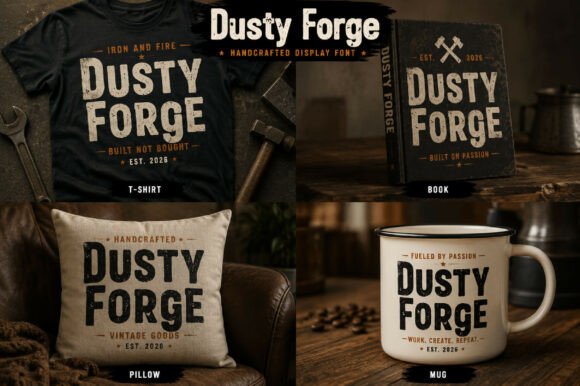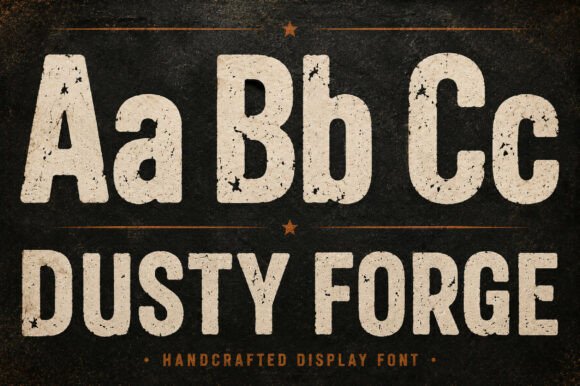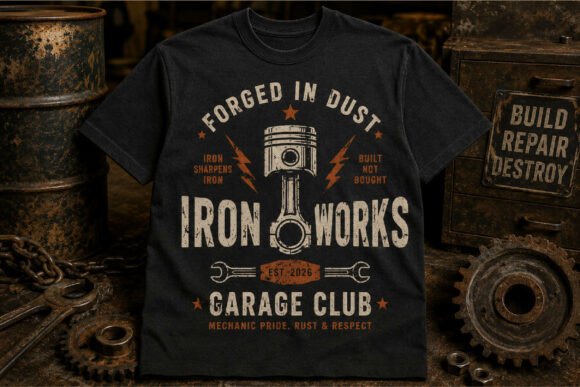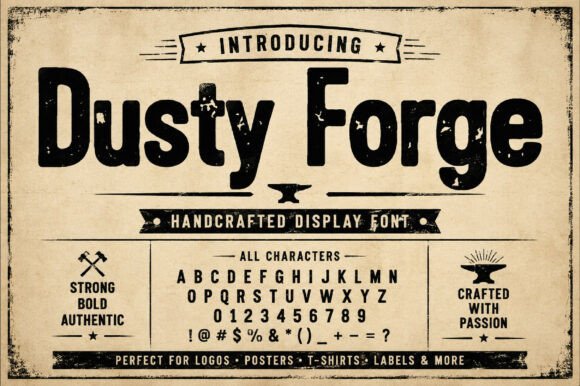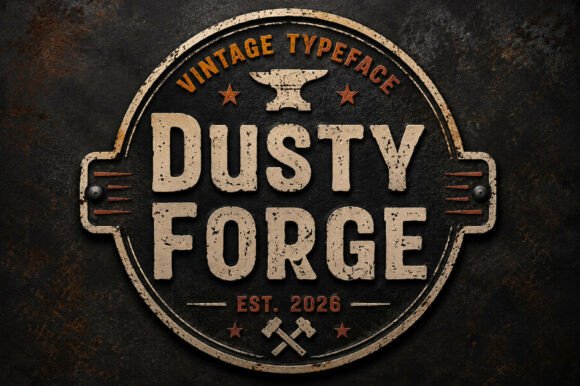
Introduction to Dusty Forge Font
Have you ever been rummaging through an old trunk in your grandfather’s attic, unearthing forgotten memories and dusty relics? I’ve had those moments, and they often spark a creative itch. One such moment led me to the raw, rugged beauty of the American West, where vintage signage and classic saloon typography tell stories of a bygone era. It’s this nostalgic charm that inspired the creation of the Dusty Forge Font – a high-quality, free download that’s about to become your go-to design resource.
As a designer, you’re always on the lookout for the perfect font to breathe life into your creative projects. Dusty Forge Font is an indispensable tool that’s sure to evoke an aura of nostalgia and timeless Americana. With its unique blend of bold structure and rustic attributes, this font is perfect for logos, posters, whiskey labels, apparel, or event graphics that need a rugged, vintage touch.
Key Features of Dusty Forge Font
- Unique, hand-drawn style with a distressed aesthetic
- Includes a comprehensive character set with over 500 glyphs
Honest Review: Dusty Forge Font
I recently came across the Dusty Forge Font and I must say, it’s been a game-changer for my creative projects. As a designer, I’m always on the lookout for high-quality design resources that can help elevate my work, and this font definitely delivers.
What works well: ✨ The Dusty Forge Font has a unique, vintage aesthetic that’s perfect for projects that require a touch of nostalgia. The font is also highly customizable, making it easy to adjust the size, color, and style to fit your specific needs. Additionally, the transparent background allows for seamless integration with other design elements.
Some limitations: ⚠️ While the font is high-quality, it’s not suitable for all types of projects. For example, it may not be the best choice for clean and modern designs. Additionally, some users may find the font a bit too bold or overpowering.
- Perfect for creative projects that require a vintage or distressed look
- Highly customizable for easy integration with other design elements
Overall, I’m thoroughly impressed with the Dusty Forge Font. It’s a fantastic addition to any designer’s toolkit and has already helped me take my projects to the next level.
Getting the Most Out of the Dusty Forge Font
To get the most out of the Dusty Forge Font, use it in conjunction with a transparent background to create a unique and eye-catching design. You can also experiment with different font sizes and styles to add visual interest to your project.
The Dusty Forge Font is perfect for creative projects, such as: